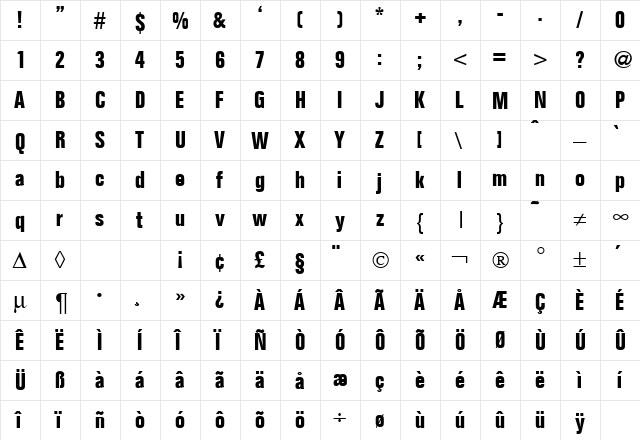
FocusCond Bold
Design Context for FocusCond Typeface
FocusCond takes a measured approach to typography — its balanced proportions and neutral character make it a reliable workhorse for both digital and print work. The heavy weight commands attention and anchors typographic hierarchies. Its narrow stance lets it pack a punch even in space-constrained designs.